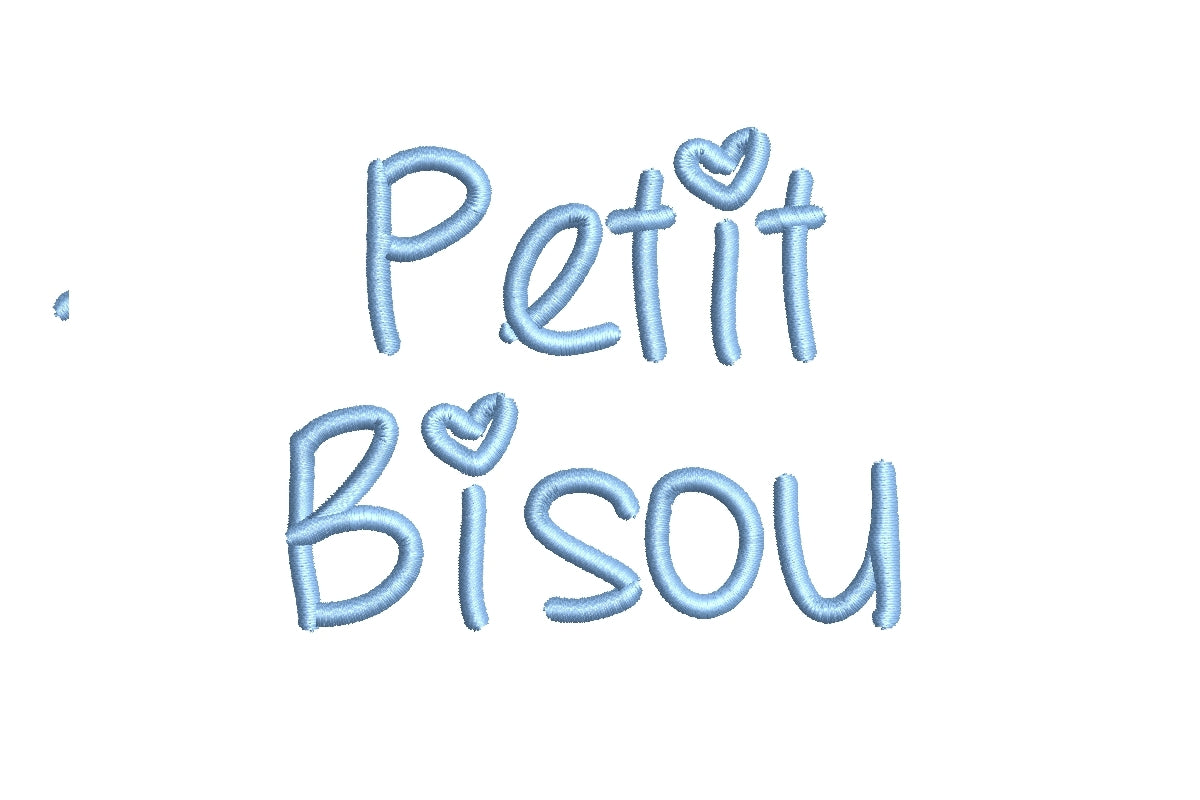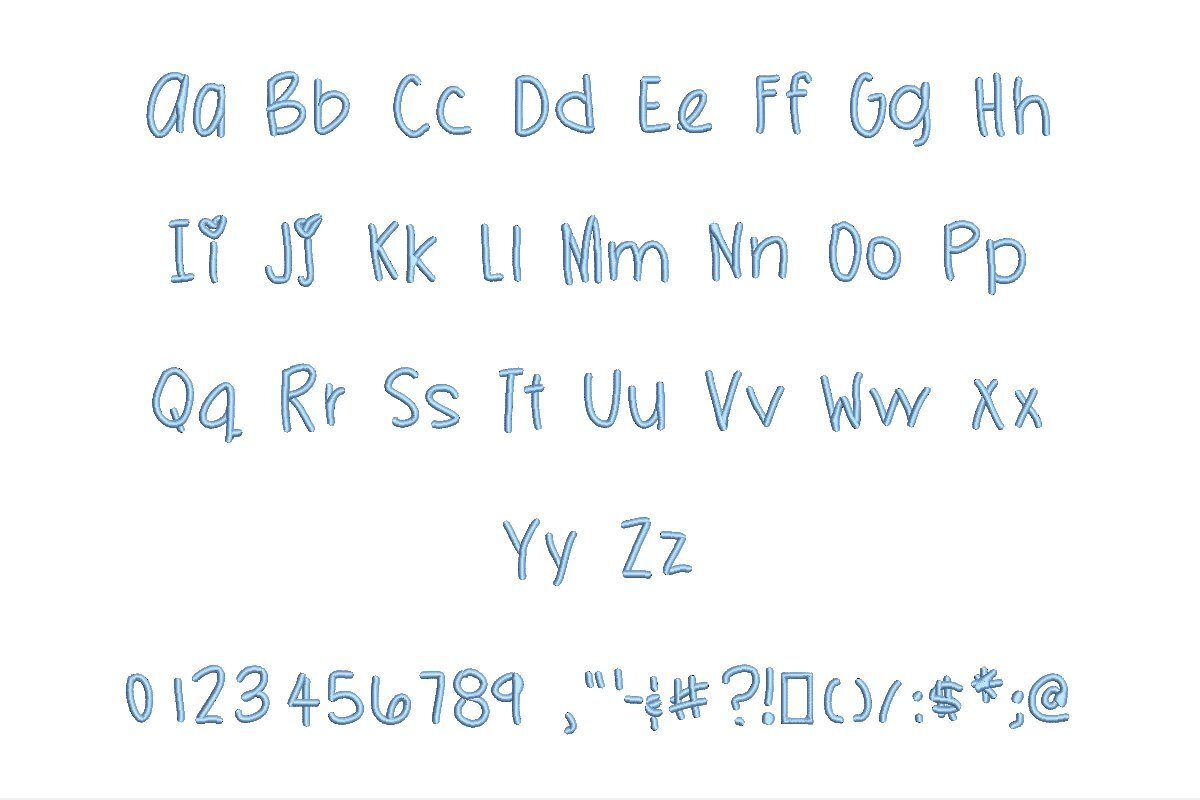
Experience the art of embroidery with Petit Bisou Medium ESA font, expertly tailored for Wilcom Studio e4.5.6 and Hatch 3 versions and beyond. This font redefines compatibility and precision, delivering impeccable stitching quality for your embroidery projects. Its versatile design exudes timeless charm and impeccable readability. The ESA format ensures precise digitization, allowing seamless integration with both Wilcom Studio and Hatch. From monograms to logos and text, this font streamlines your design process, bringing unparalleled clarity and style to your creations. Elevate your embroidery projects to professional levels with Petit Bisou Medium ESA font, the ultimate choice for discerning artisans.